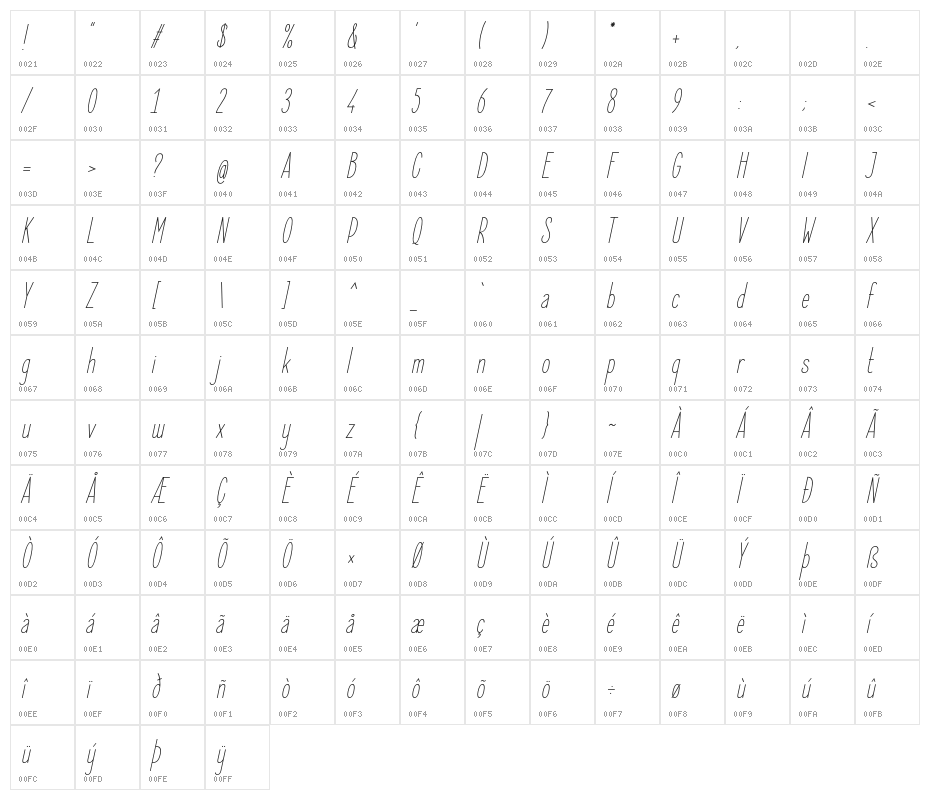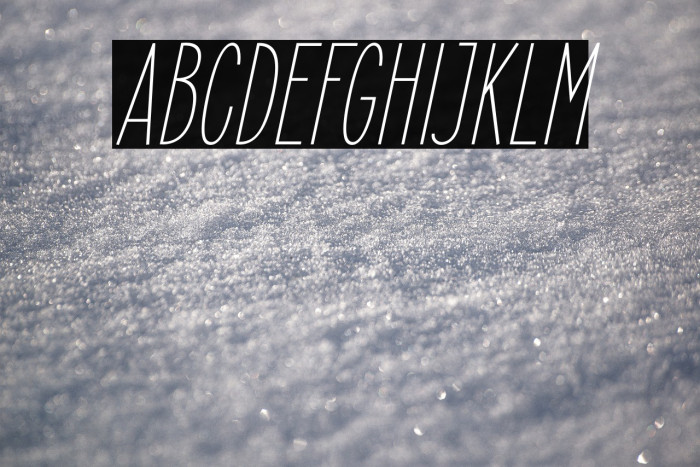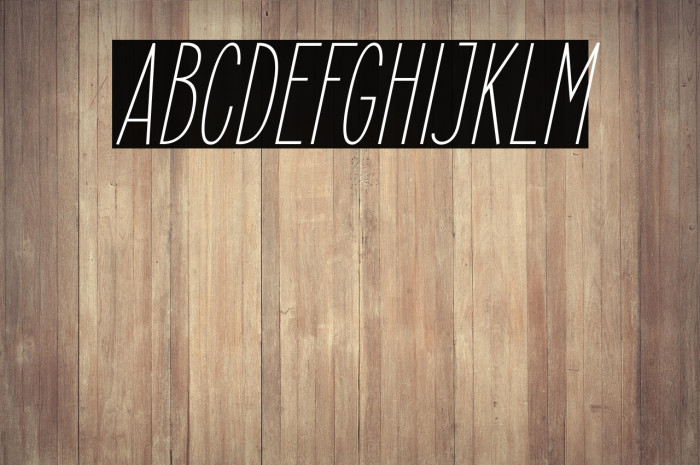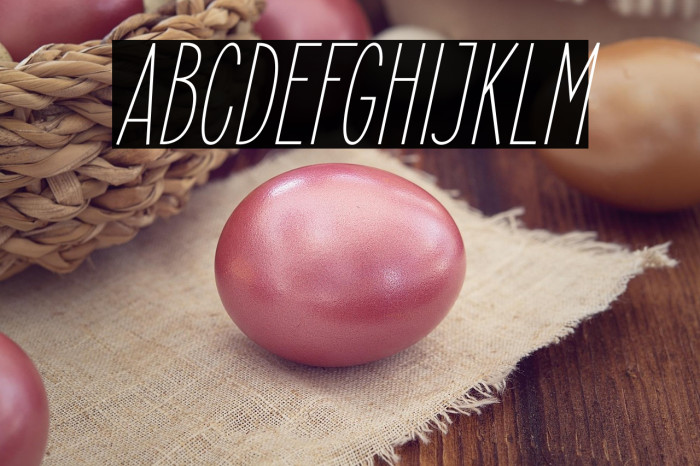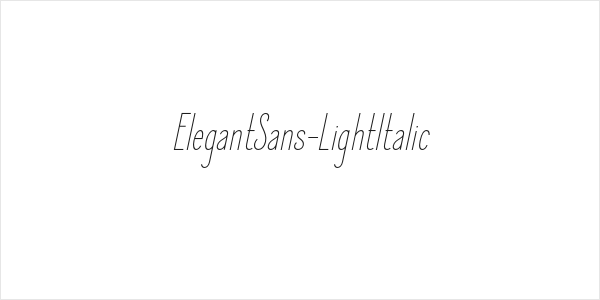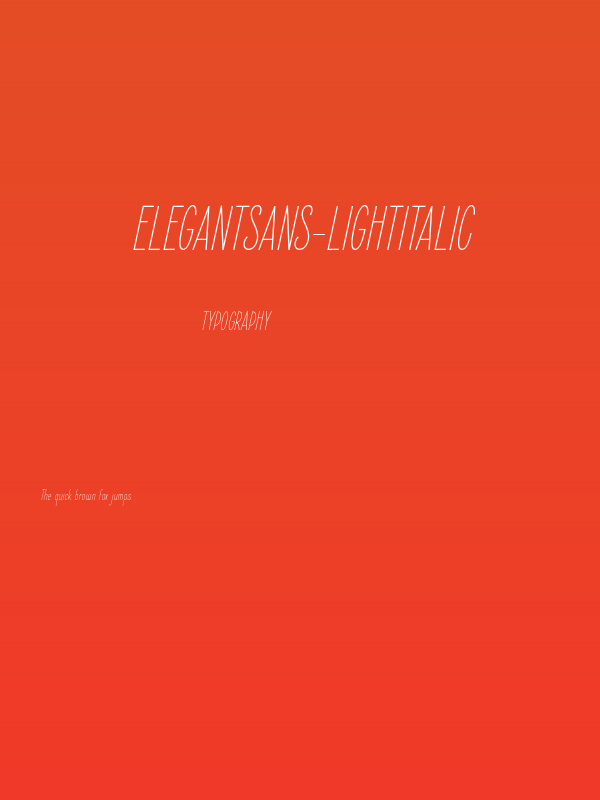
ElegantSans-LightItalic Font
ElegantSans-LightItalic Description
This font features a sleek and modern sans-serif design with a light weight and italic style. The characters are elongated and slightly condensed, giving it an elegant and sophisticated appearance. The strokes are consistent and smooth, with a low contrast between thick and thin lines. This font maintains a clean and minimalistic look, making it suitable for contemporary design projects. The character spacing is tight, enhancing its streamlined aesthetic. Its overall style is modern and refined, perfect for conveying a sense of elegance and professionalism.
Use CaseHeadlines, Logos, Invitations
Proposed ProjectsIdeal for fashion magazines, luxury branding, elegant invitations, and modern websites.